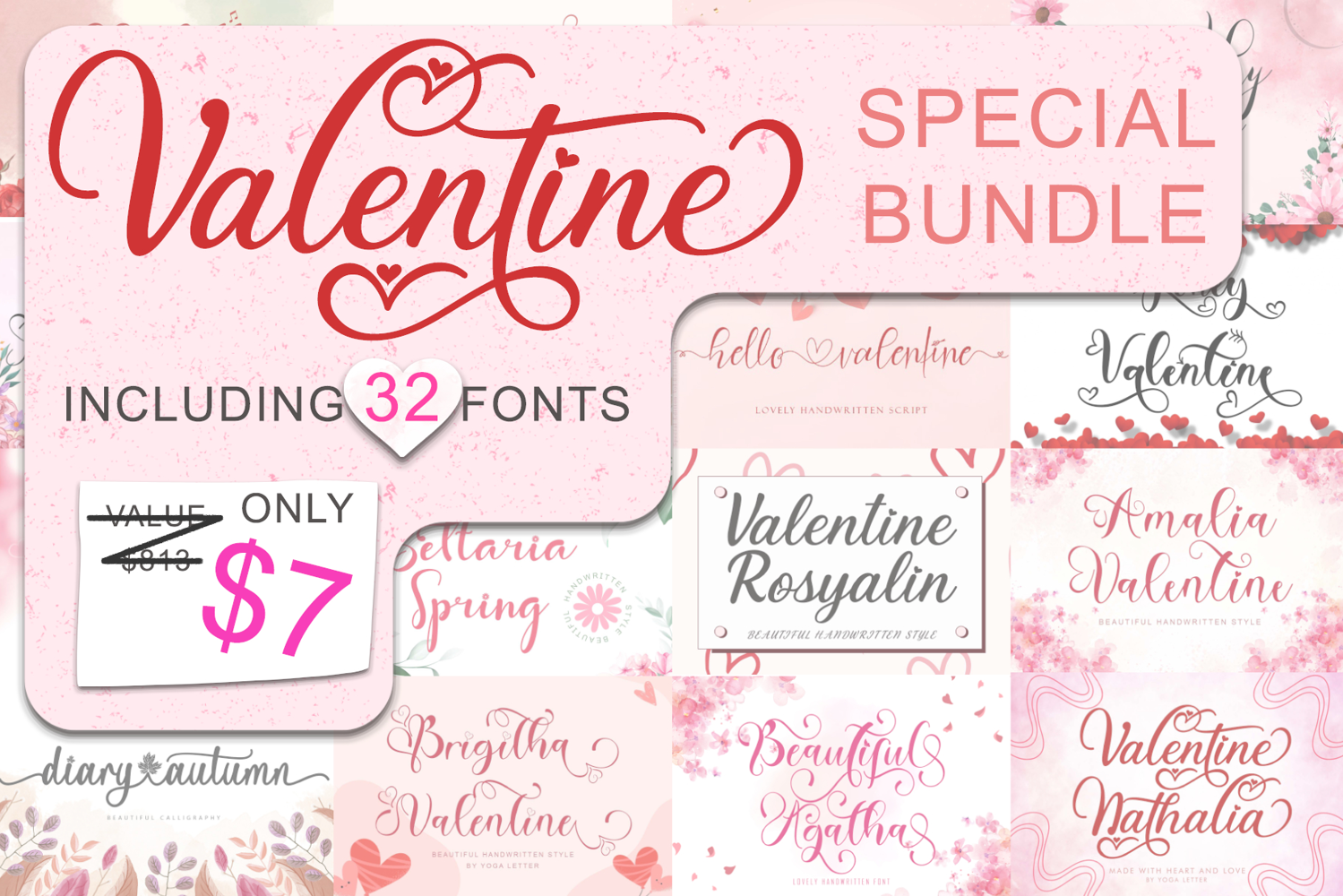
Valentine Special Bundle
Complete font for all your work.
This bundle contains 32 beautiful fonts :
32. Amalestha https://fontbundles.net/yogaletter6/2877838-amalestha
This bundle is perfect for a variety of projects such as valentine, spring, summer, easter, christmas, halloween, fall, autumn, back to school, weddings, designs, branding, logos, invitations, stationery, social media posts, advertisements, product packaging, product designs, labels, photography, valentine, easter, mother day, father day, watermarks, special events or whatever.